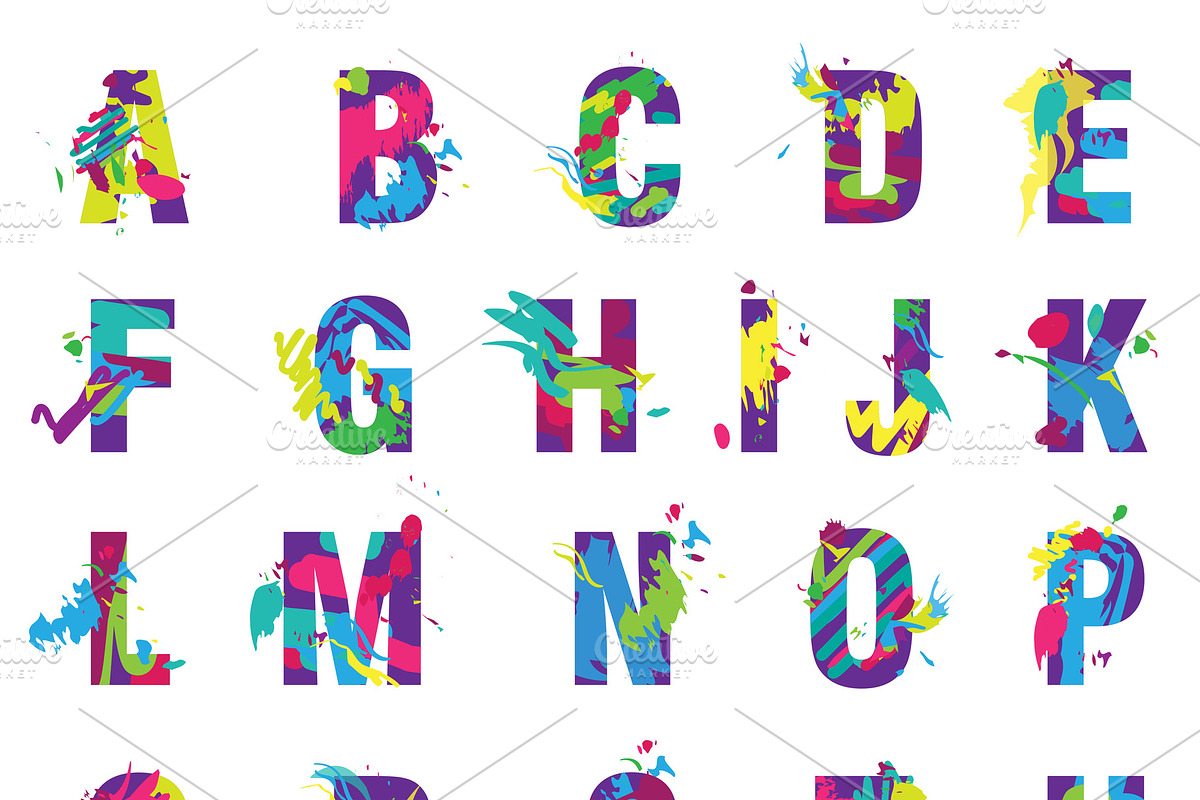
Painted splashes alphabet font
Vector Trendy letters alphabet font painted by color paint splashes.
Why Painted splashes alphabet font is worth a look
Painted splashes alphabet font by Lemberg Vector fits naturally into Branding, posters, packaging, typography.